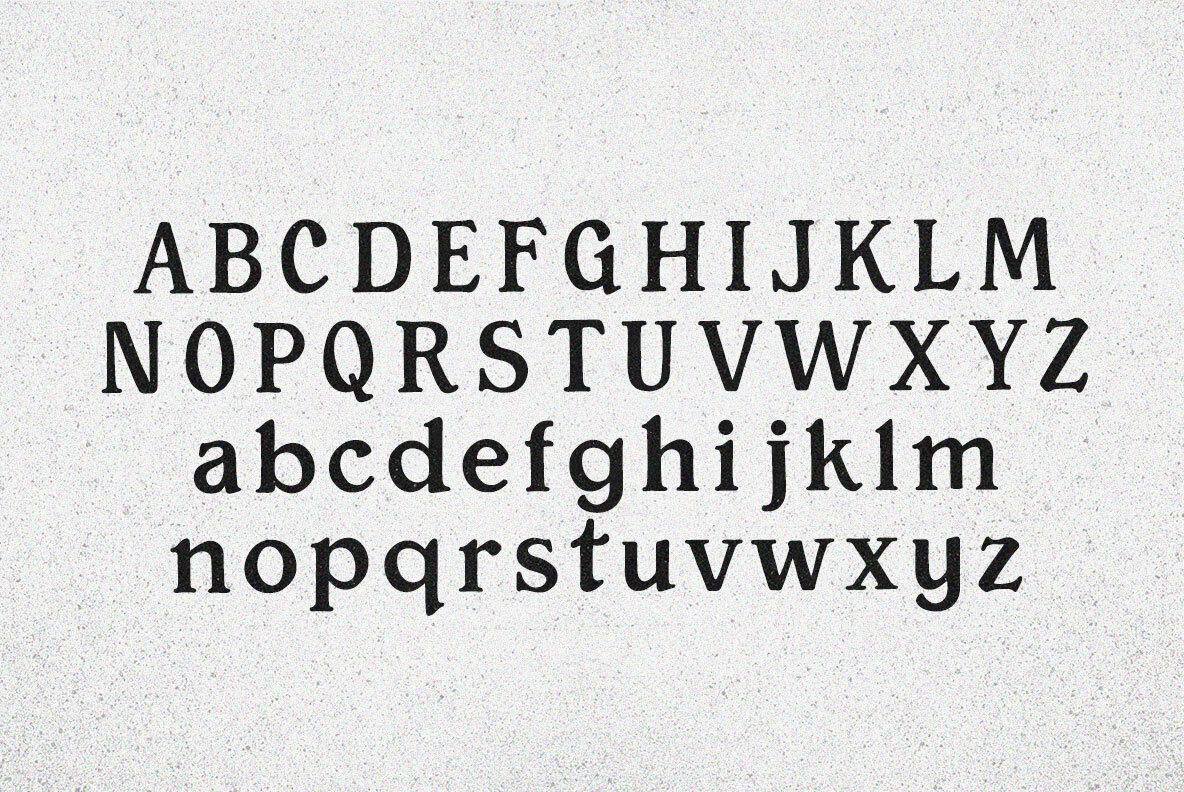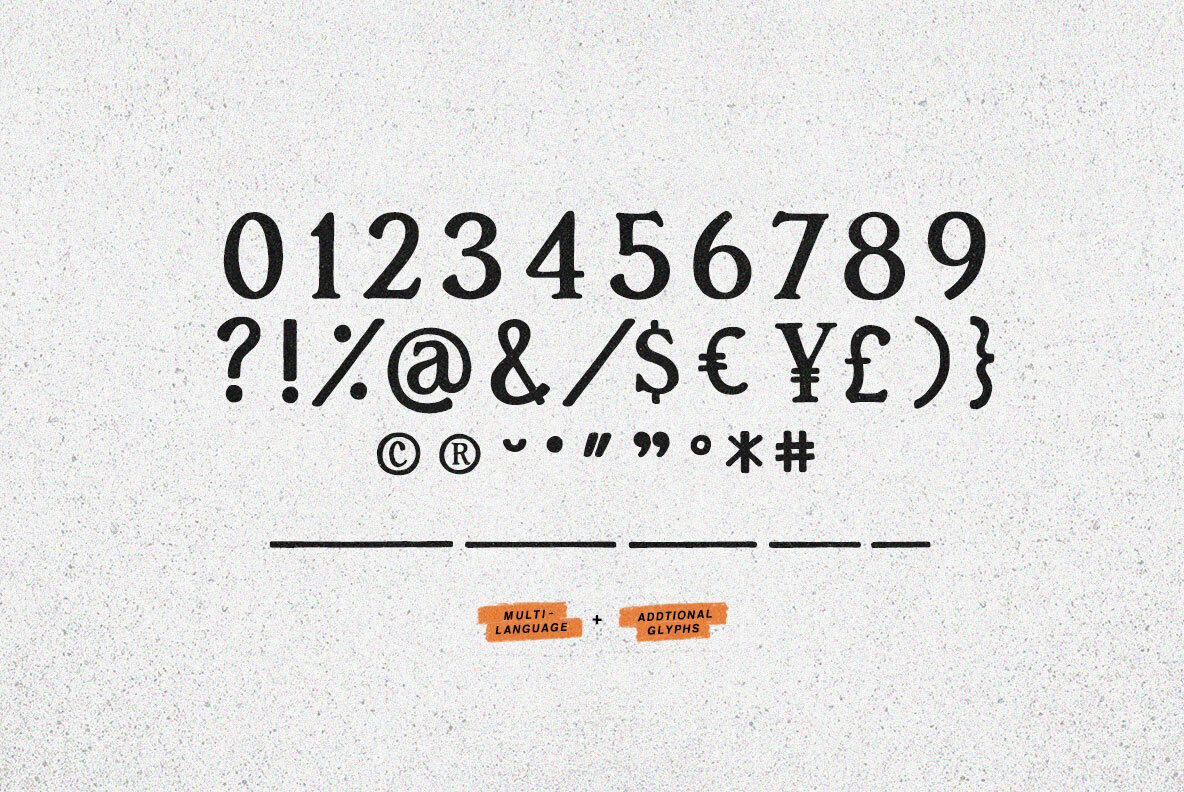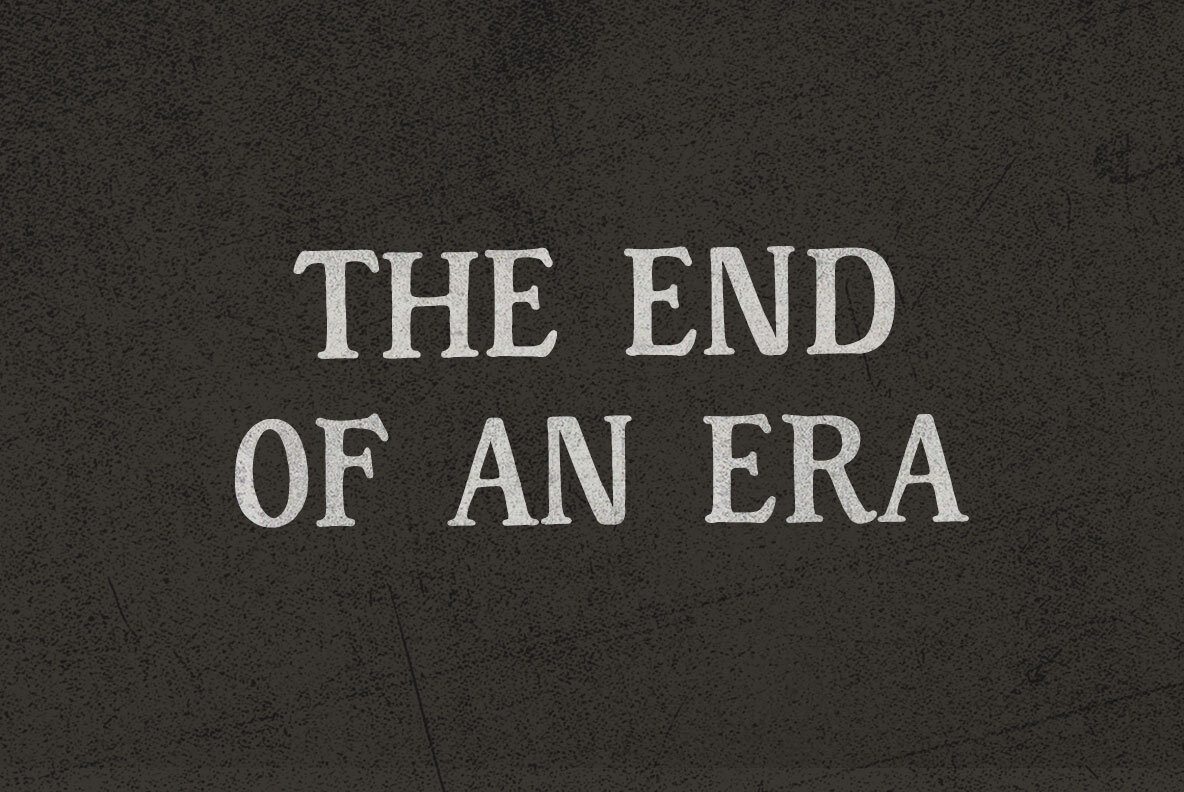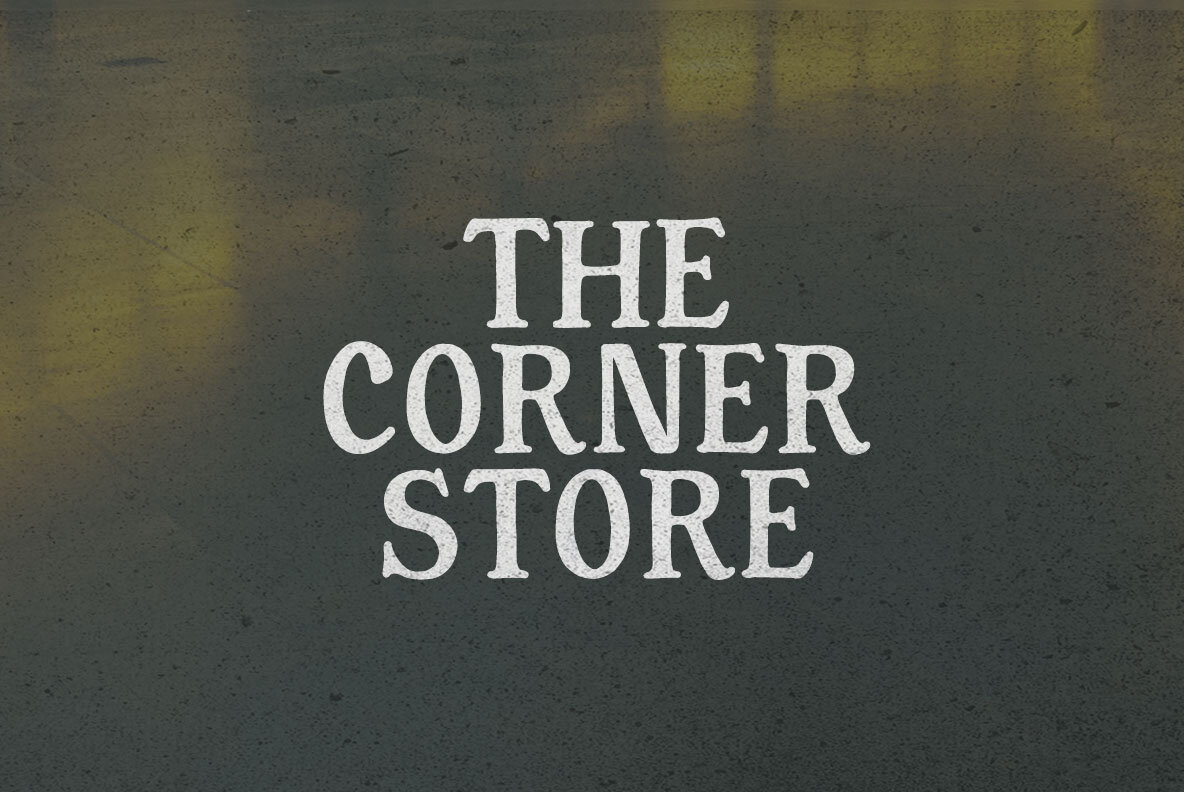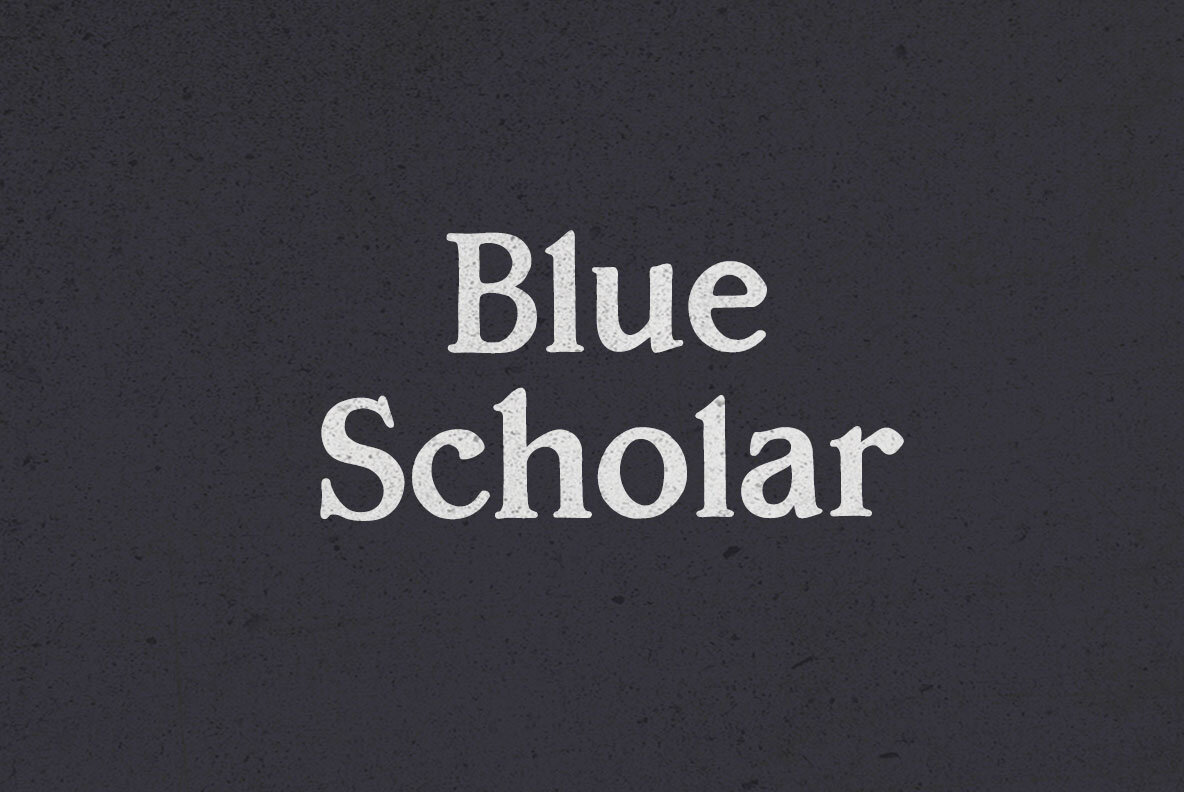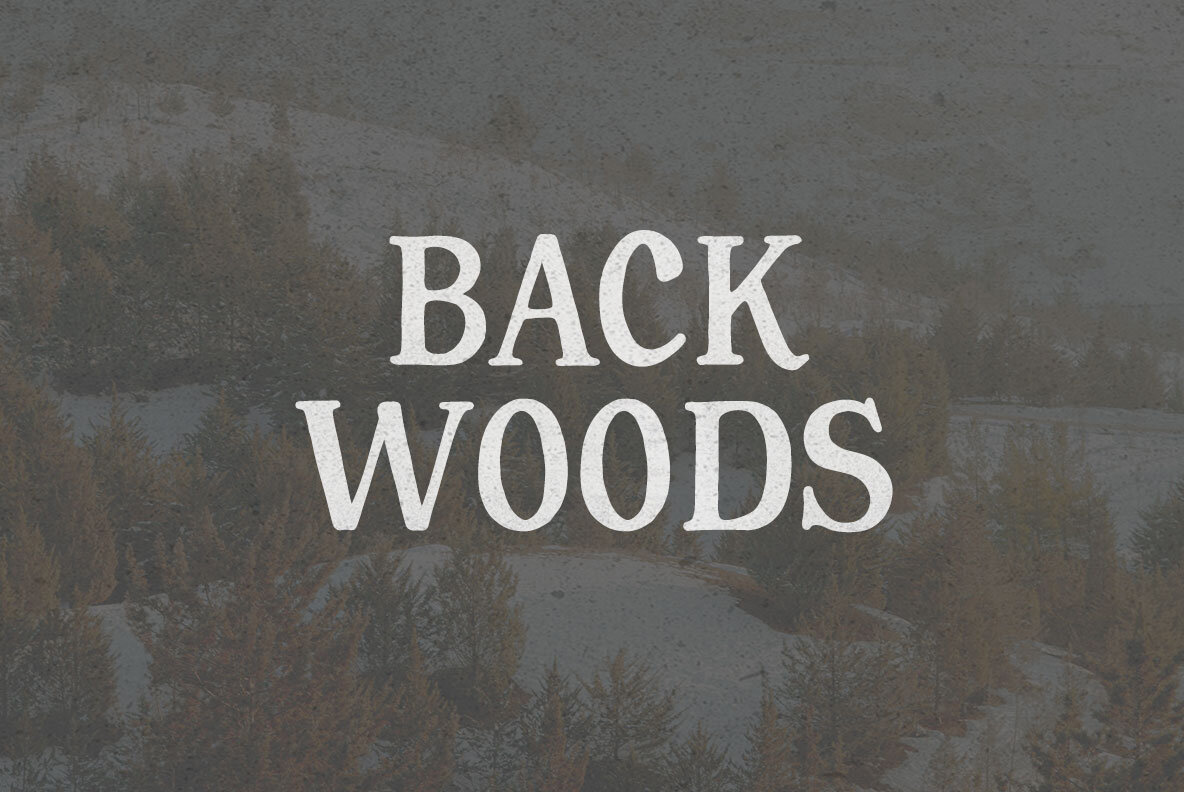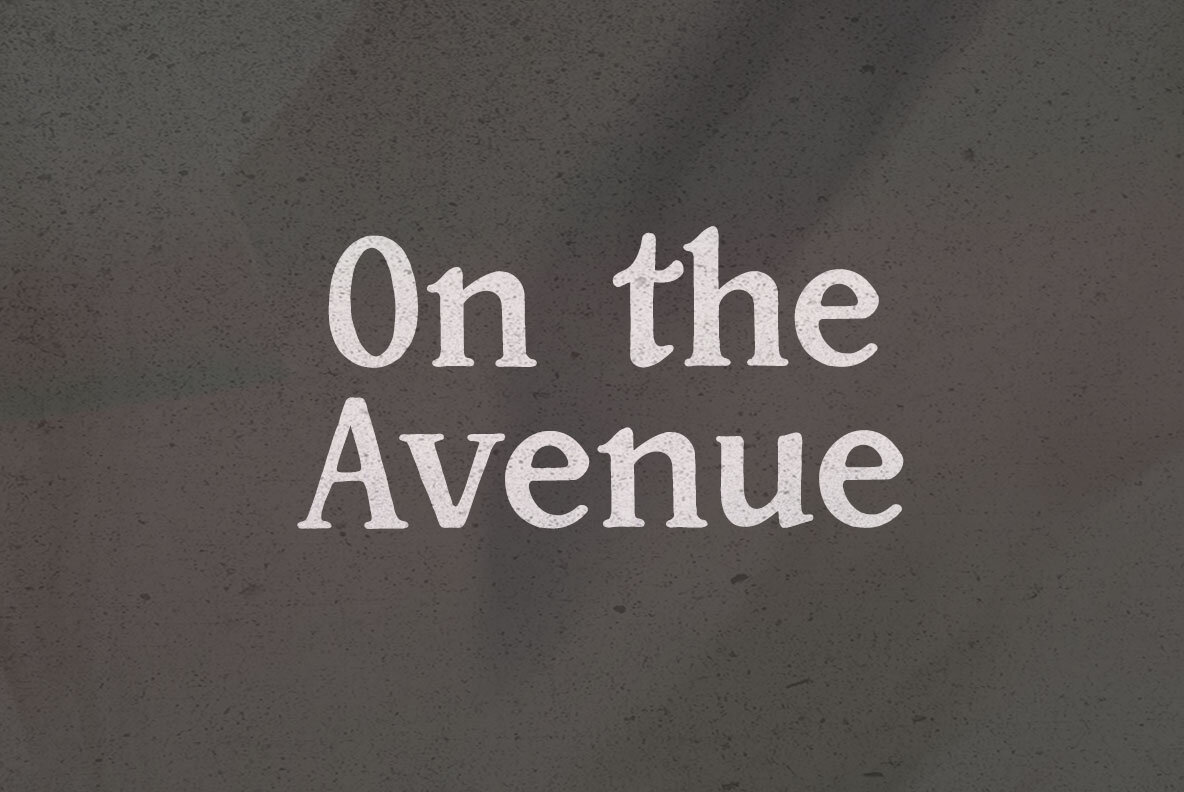
Common Grounds Font
Common Grounds
We want to feast in clover—hang the Geist from the Zeit ‘til the timelines collapse. That’s a heaving bulk of ectoplasmic mass—a tragi-comedy of the Common Grounds ground down but still common, still ground. And we can’t take it if we can’t take it over.